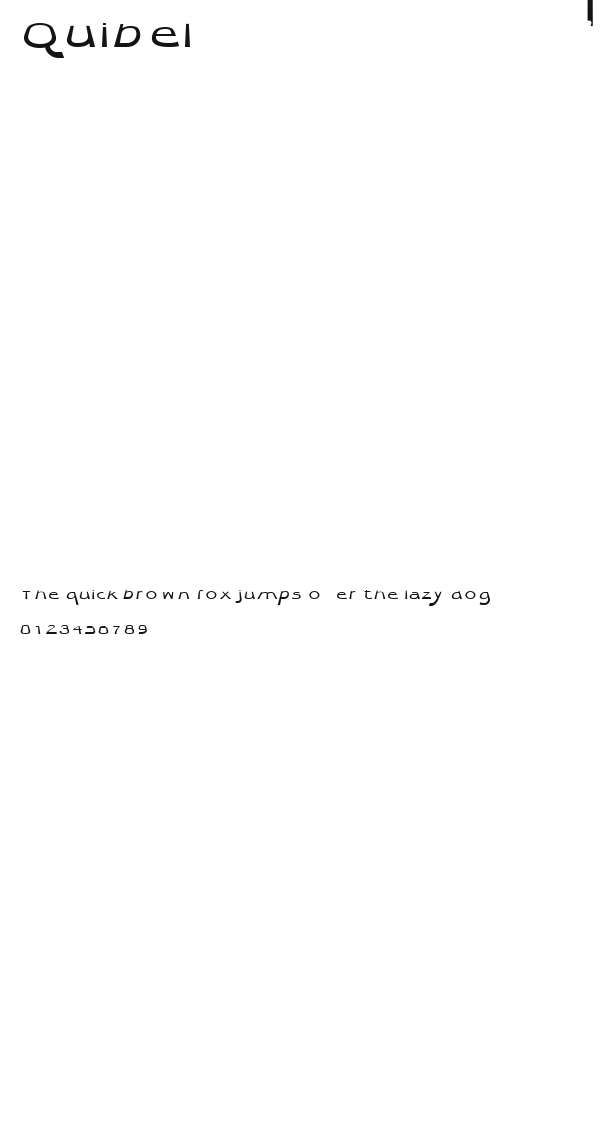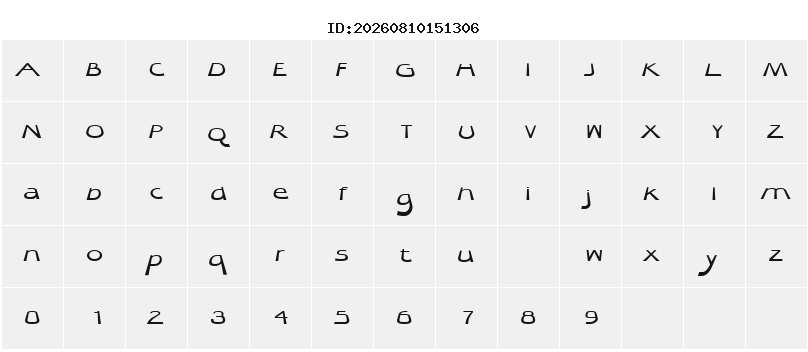
Quibel Preview
• Font Name: Quibel
• Font ID: Quibel Bold Italic
• Full Font Name: Quibel Bold Italic
• PostScript Name: Quibel-Bold-Italic
About Quibel.ttf
Quibel.ttf is a modern, elegant sans-serif font designed for ultimate readability and visual harmony. Perfect for branding, headlines, web design, and print materials.